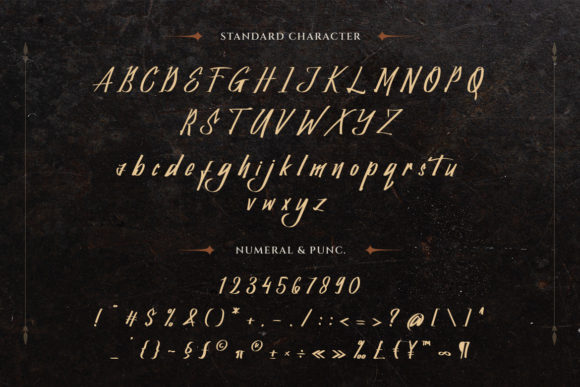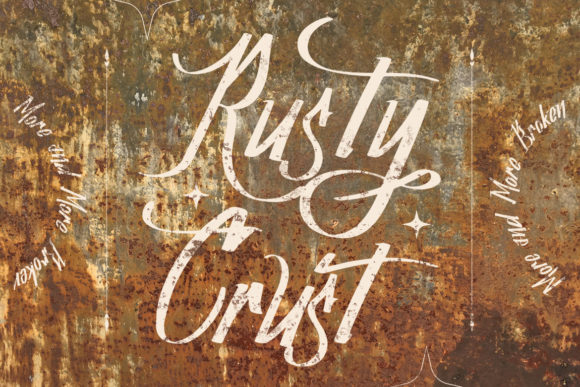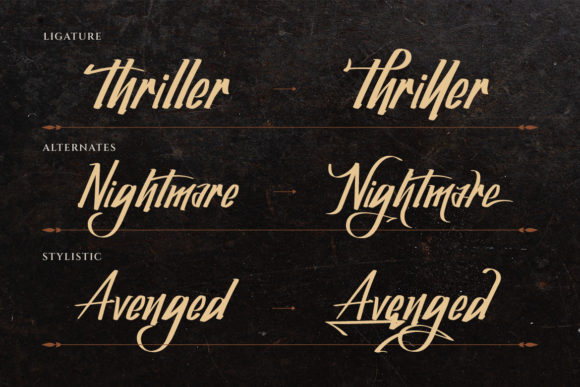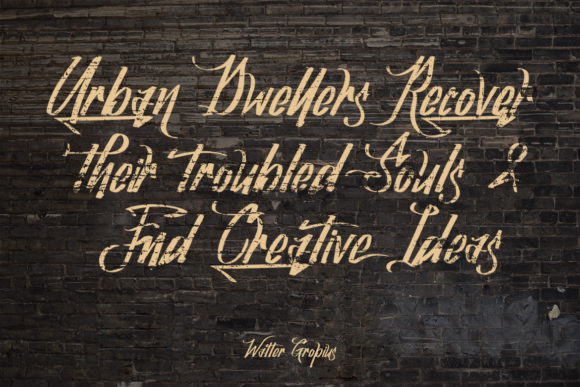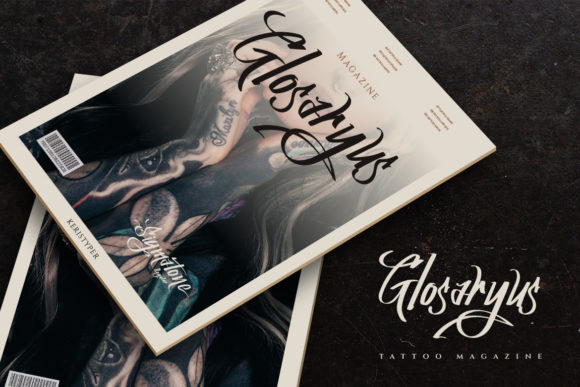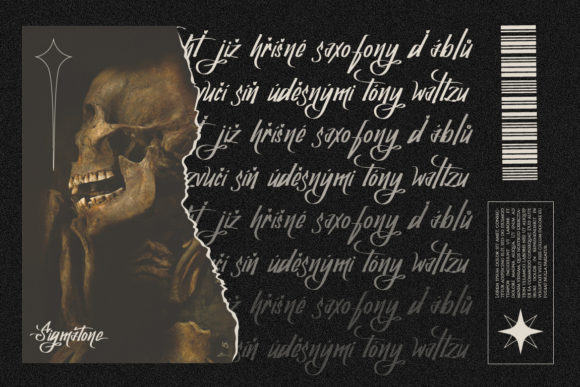
Introduction to Sigmatone Font
Have you ever found yourself in the middle of a creative project, surrounded by scraps of paper, empty coffee cups, and a faint glow of inspiration? That’s where the magic happens, and for many designers, it’s the perfect moment to break out their favorite fonts. One such font that stands out from the crowd is the Sigmatone Font, a high-quality design resource that’s about to become your new best friend.
With its roots in old skool graffiti tagging and street art, the Sigmatone Font is a unique and versatile tool that’s perfect for a wide range of creative projects. Whether you’re working on a movie title, book cover, or social media campaign, this font is sure to add a touch of sophistication and style. And the best part? It’s available for free download, making it a valuable resource for designers of all levels.
From its transparent background to its carefully crafted vector design, the Sigmatone Font is a true gem in the world of design. In this article, we’ll take a closer look at what makes this font so special and how you can incorporate it into your next creative project.
Key Features of Sigmatone Font
- Transparent background, allowing for seamless integration into various design elements
- Features a unique, modern design that adds a touch of sophistication to any project
- High-resolution fonts (up to 300 DPI) ensure crisp, clear text even at large sizes
Honest Review: Sigmatone Font
As a designer, I’ve had the pleasure of working with a wide range of fonts, but Sigmatone Font has caught my attention. This high-quality font is a valuable addition to any design resource, offering a unique and creative twist to your projects.
One of the standout features of Sigmatone Font is its transparent background, making it a perfect fit for creative projects where subtle backgrounds are essential. The font’s versatility is undeniable, and it works seamlessly across various design platforms.
- High-quality design with a unique twist
- Transparent background ideal for creative projects
- Versatile and works well across various design platforms
- May require some adjustments for optimal legibility
- Not suitable for body text, best used for headings and titles
Overall, I’m impressed with the Sigmatone Font’s design and functionality. It’s a valuable addition to any designer’s toolkit, and I’d highly recommend it for any creative project. Whether you’re working on a logo, branding, or web design, Sigmatone Font is definitely worth considering.
Tips for Getting the Most Out of Sigmatone Font
For the best results, use the Sigmatone Font in conjunction with other high-quality design elements. Experiment with different font sizes, colors, and styles to create a unique and eye-catching design. The transparent background feature allows for endless creative possibilities.
The Sigmatone Font is ideal for use in a variety of creative projects, including branding materials, social media graphics, and presentations. Its clean and modern design aesthetic makes it a popular choice for designers and non-designers alike.
Is the Sigmatone Font available in different font styles and weights?